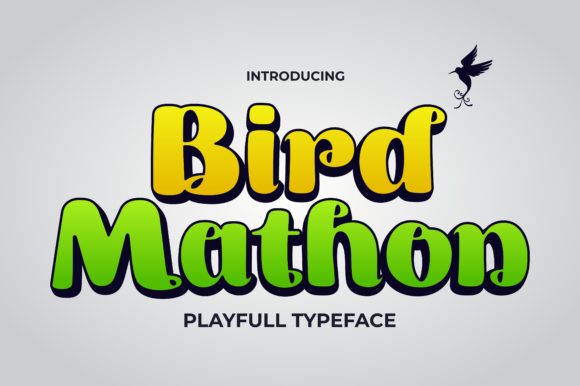
Behold, the Birdmathon Font - where artistry and purpose converge!
Unleash your creativity with this captivating and distinctive typeface, meticulously designed to transform your projects into masterpieces. Whether you're crafting a heartfelt family tree, designing an eye-catching logo or seeking to add a touch of flair to any project, Birdmathon Font empowers you to make a statement.
Step into a realm of endless possibilities where imagination knows no bounds. Let Birdmathon's bold and commanding presence elevate your creations, making them memorable and unforgettable.
Immerse yourself in the font's versatility, seamlessly adapting to a myriad of design needs. From branding that exudes professionalism to greeting cards that convey warmth, from packaging designs that allure to posters that captivate, Birdmathon Font is your trusted companion, guiding you towards design excellence.
Experience the true essence of expression as Birdmathon Font becomes an extension of your creativity. Its carefully crafted strokes, inspired by the enduring bonds of family, empower you to convey messages that resonate and create lasting impressions.
Embrace the Birdmathon Font today and embark on a journey of limitless design possibilities. Let its bold and captivating presence ignite your imagination and elevate your projects to new heights of brilliance.